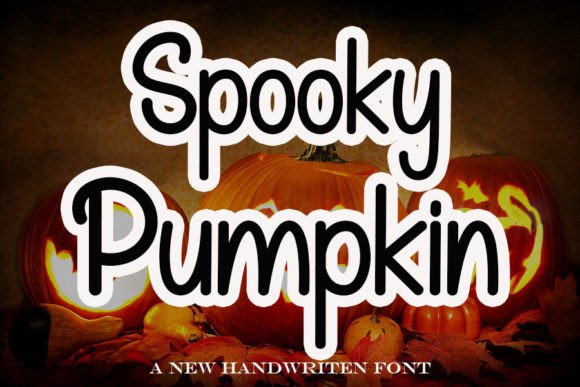
Step into a world of enchanting whimsy with the Spooky Pumpkin font, a charming masterpiece that weaves the magic of handwritten elegance into your digital creations. Designed with a keen eye for detail, this mesmerizing font features delicate strokes, graceful curves, and an endearingly playful spirit. As a member of the captivating script font family, Spooky Pumpkin is renowned for its ability to transport your designs into a realm of timeless beauty.
Unleash your creativity and let the Spooky Pumpkin font guide you through a myriad of enchanting design possibilities. Its alluring personality lends itself seamlessly to a wide spectrum of projects, from heartfelt personal letters and whimsical invitations to captivating social media graphics and spellbinding branding materials. Embrace the enchantment of Spooky Pumpkin and watch as your designs blossom into works of art that capture the hearts of your audience.
With its baby script aesthetic, Spooky Pumpkin possesses an inherent charm that exudes warmth and approachability. This enchanting font is particularly well-suited for projects that seek to evoke a sense of nostalgia, innocence, and childlike wonder. Let the playful spirit of Spooky Pumpkin dance across your designs, inviting viewers to embark on a journey of imagination and delight.
Whether you're a seasoned design professional or just starting your creative journey, Spooky Pumpkin is an essential tool for your font arsenal. Its versatility and user-friendliness make it accessible to designers of all skill levels, while its captivating aesthetics ensure that your designs will always stand out from the crowd.
Don't miss this opportunity to add a touch of enchantment to your design projects. Embrace the magic of Spooky Pumpkin today and let your creativity flourish like never before!